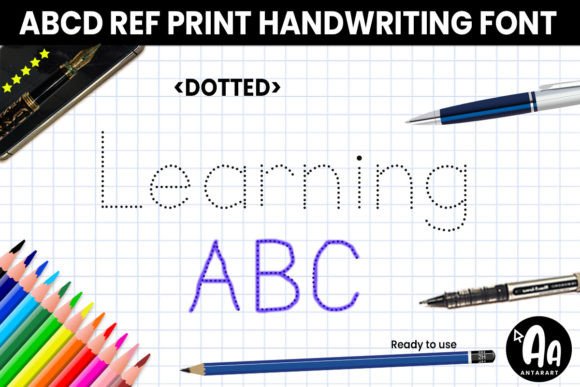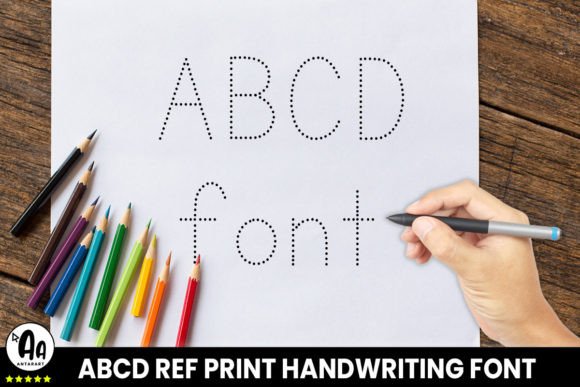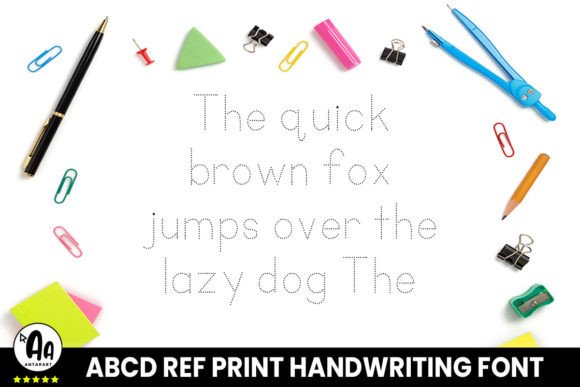
Abcd Ref Dotted Font
About the Abcd Ref Dotted Font
The Abcd Ref Dotted Font is here to transform your projects with its distinctive character and style. ABCD Ref dotted (ABCD Ref font family)
This practical display font is based on the D’Nealian Method US school and helps you create thousands of worksheets. It is a great learning resource for those who want to learn or teach the print alphabet enjoyably and interactively.
Its playful, slightly informal style makes Abcd Ref Dotted Font ideal for children’s books, educational materials, playful branding projects, and eye-catching headlines. It works well in short bursts of text on posters or packaging where its unique dotted character adds visual interest. However, its low x-height and distinctive letterforms make it unsuitable for body text or extended reading. Avoid using it in UI contexts or for lengthy paragraphs.
Pairing Abcd Ref Dotted Font with a clean sans-serif like Open Sans for body copy creates a strong visual contrast and enhances readability. For a more sophisticated feel, consider pairing it with a classic serif such as Garamond or a modern geometric sans-serif like Futura. These pairings balance the font’s playful energy with a sense of order and sophistication.
The overall personality is friendly and approachable, yet distinctive and memorable. Its dotted elements convey a lighthearted, slightly whimsical tone suitable for projects targeting younger audiences or those requiring a touch of playful charm.